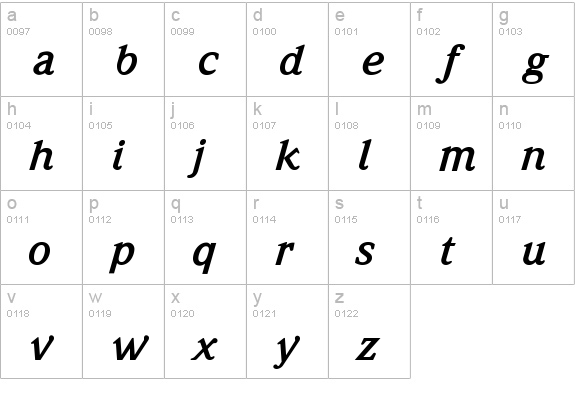
WeidemannBoldItalic Font Details
WeidemannBoldItalic is a stunning and elegant font that is sure to catch the eye in any design project. Its bold and italic styles combine to create a unique and sophisticated look that is perfect for both headings and body text. Crafted with precision and attention to detail, WeidemannBoldItalic offers a perfect balance between boldness and elegance. The curves and strokes of each letter are meticulously designed, resulting in a font that exudes professionalism and sophistication. One of the most remarkable aspects of WeidemannBoldItalic is that it is available for free download at FontsMarket.com. This means that anyone can easily access and utilize this exquisite font without any cost. Whether you're a professional graphic designer or an amateur enthusiast, WeidemannBoldItalic offers a fantastic opportunity to enhance your designs with a high-quality, freely accessible font. With its versatility and timeless appeal, WeidemannBoldItalic is suitable for a wide range of design projects. Whether you're creating a logo, a website, a brochure, or any other visual content, this font is sure to elevate your work to new heights. Its bold and italic styles lend themselves well to creating emphasis and hierarchy, while maintaining an air of sophistication. In conclusion, WeidemannBoldItalic is a captivating font that is both visually striking and freely available for download at FontsMarket.com. With its perfect balance of boldness and elegance, this font is a must-have for any designer looking to make a lasting impression.